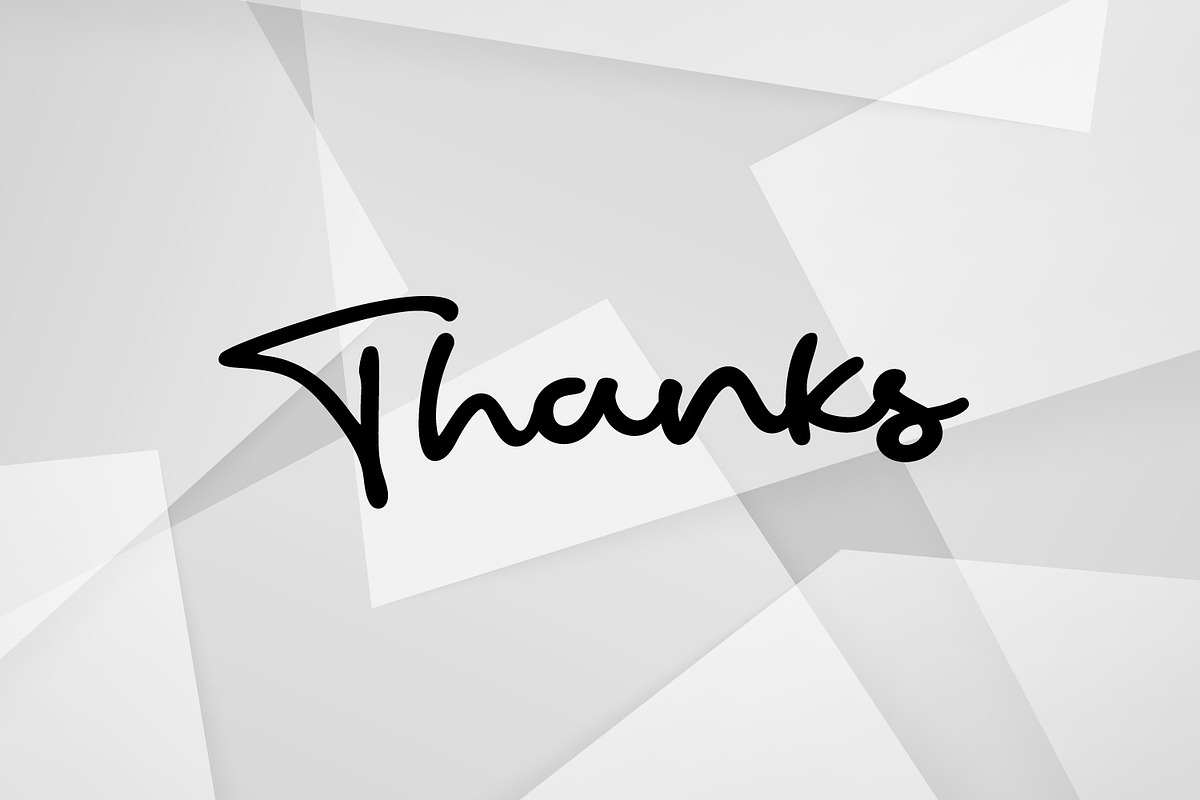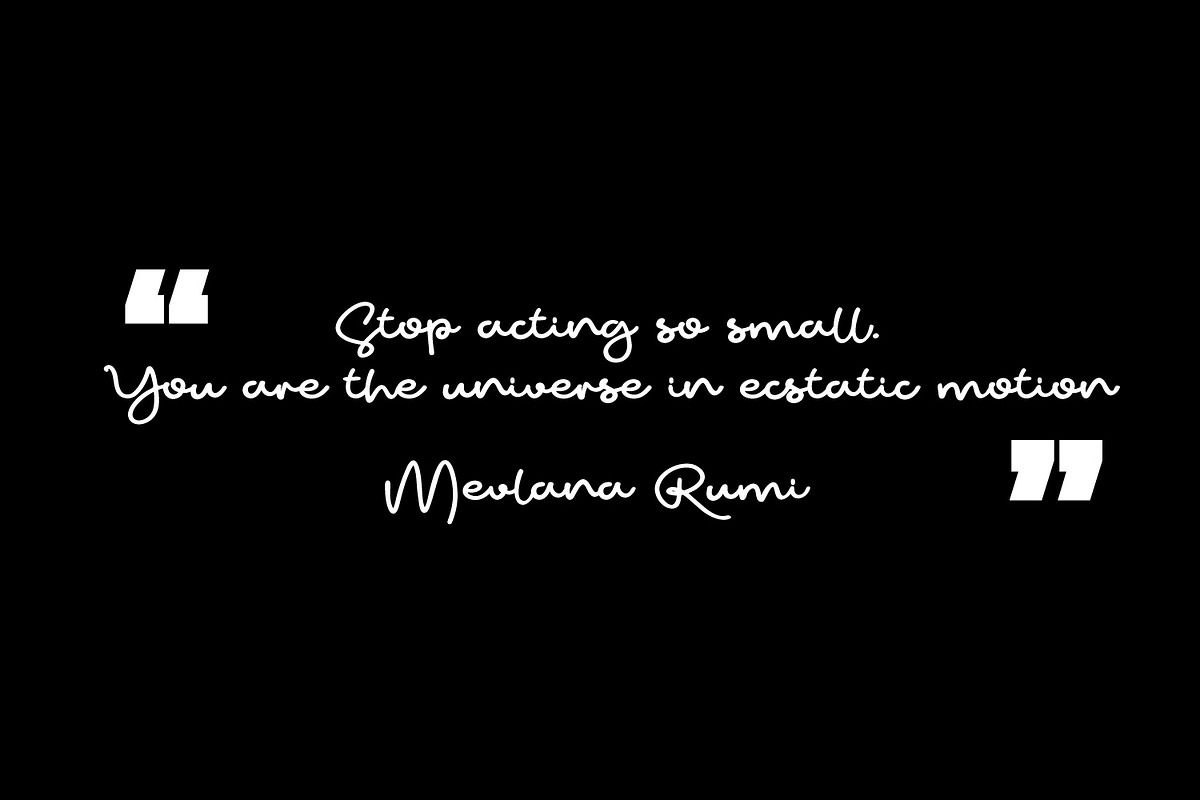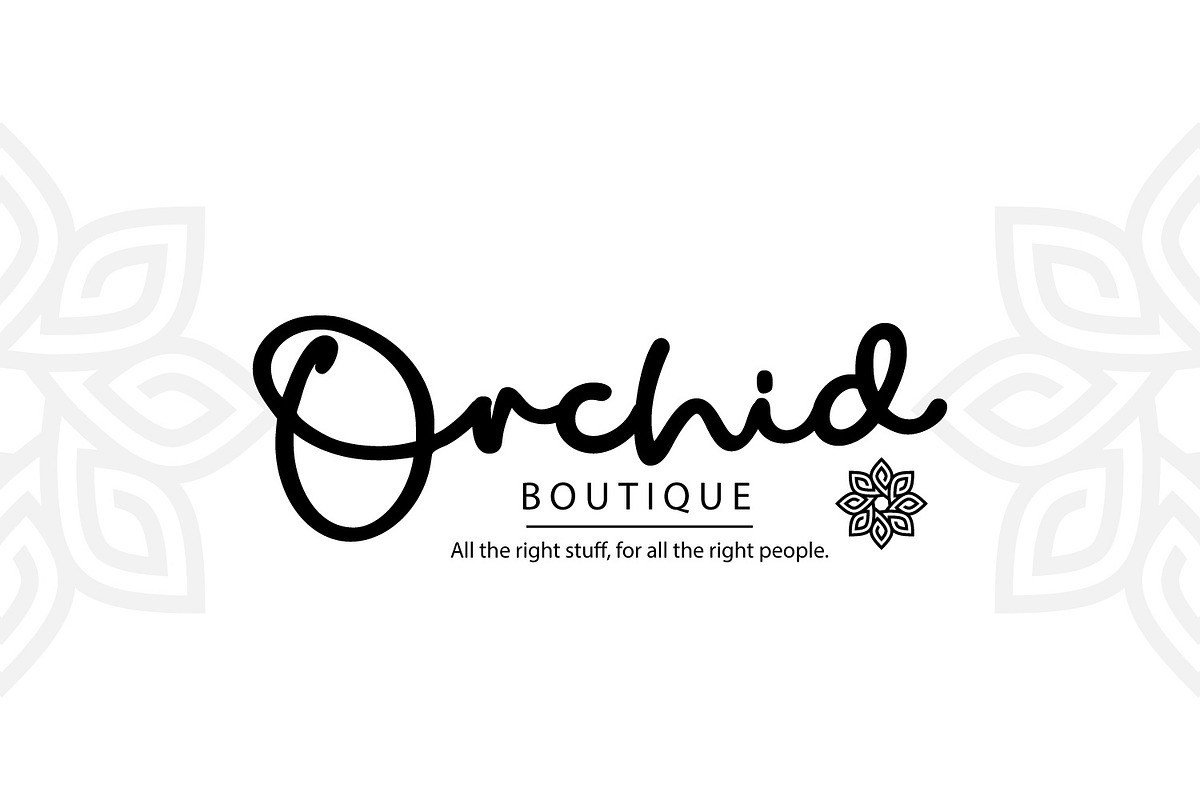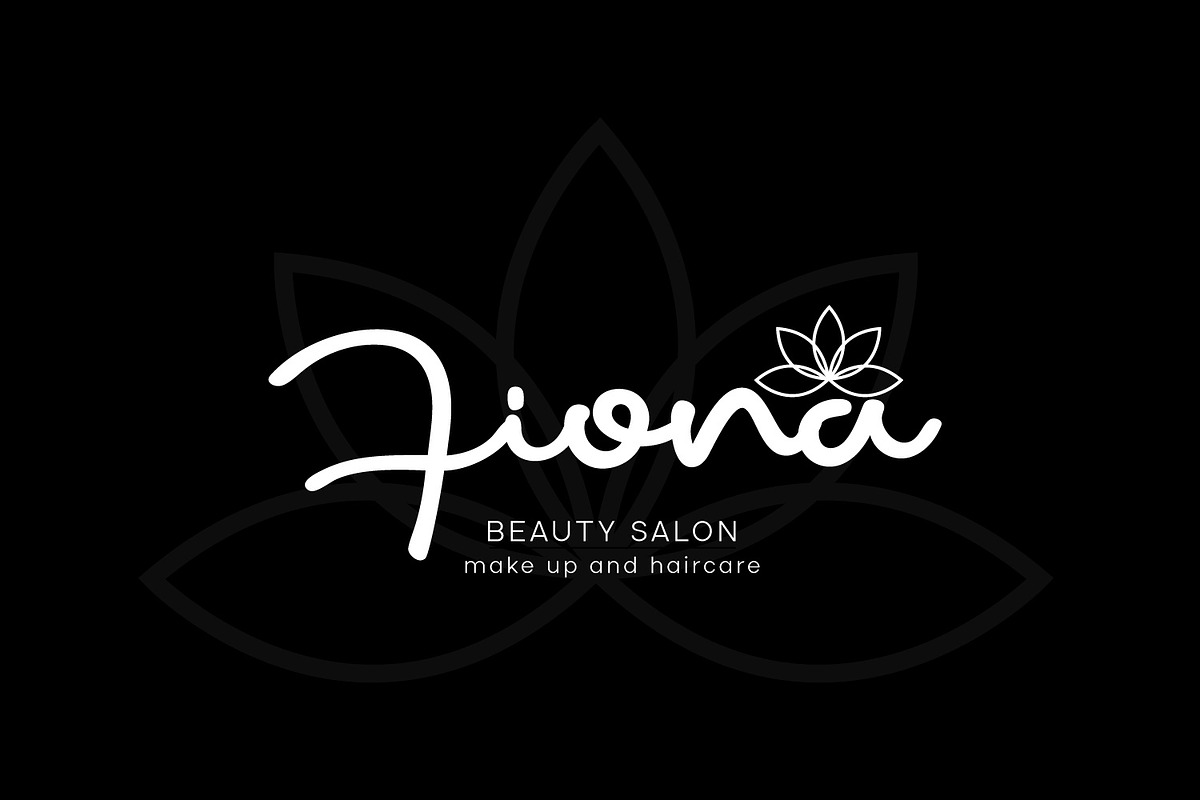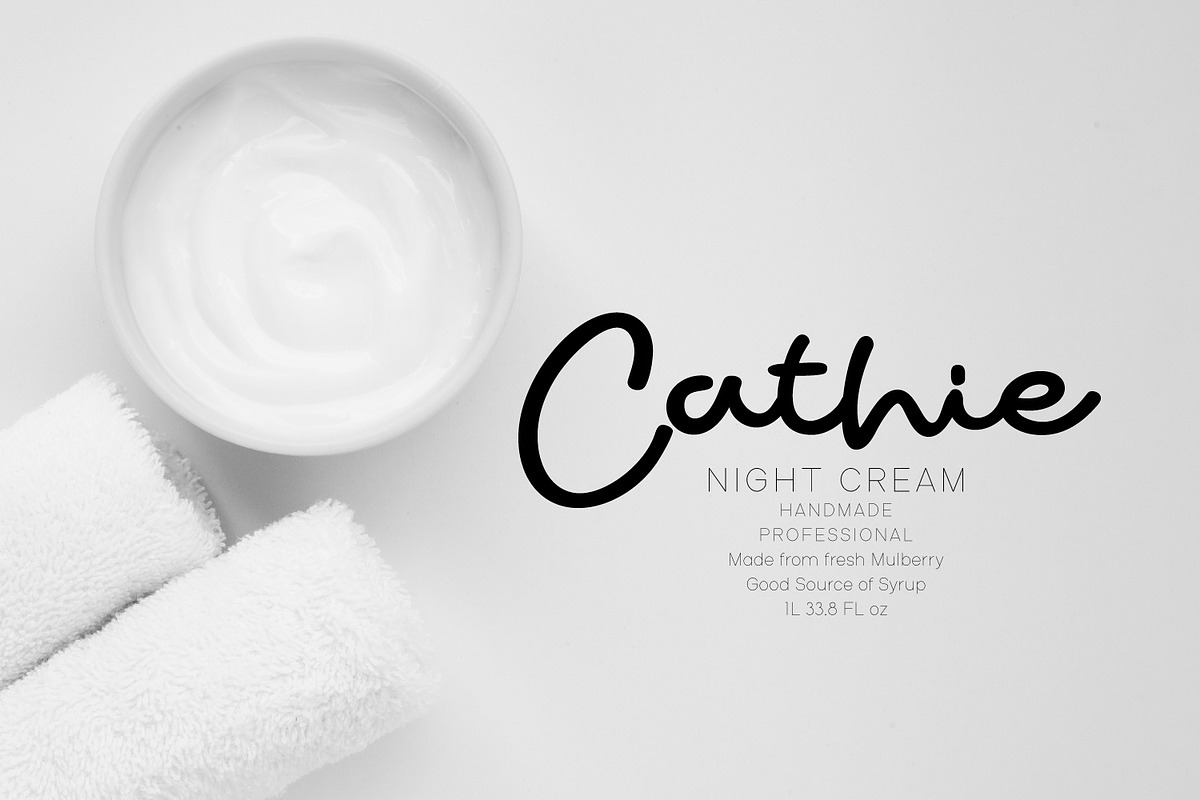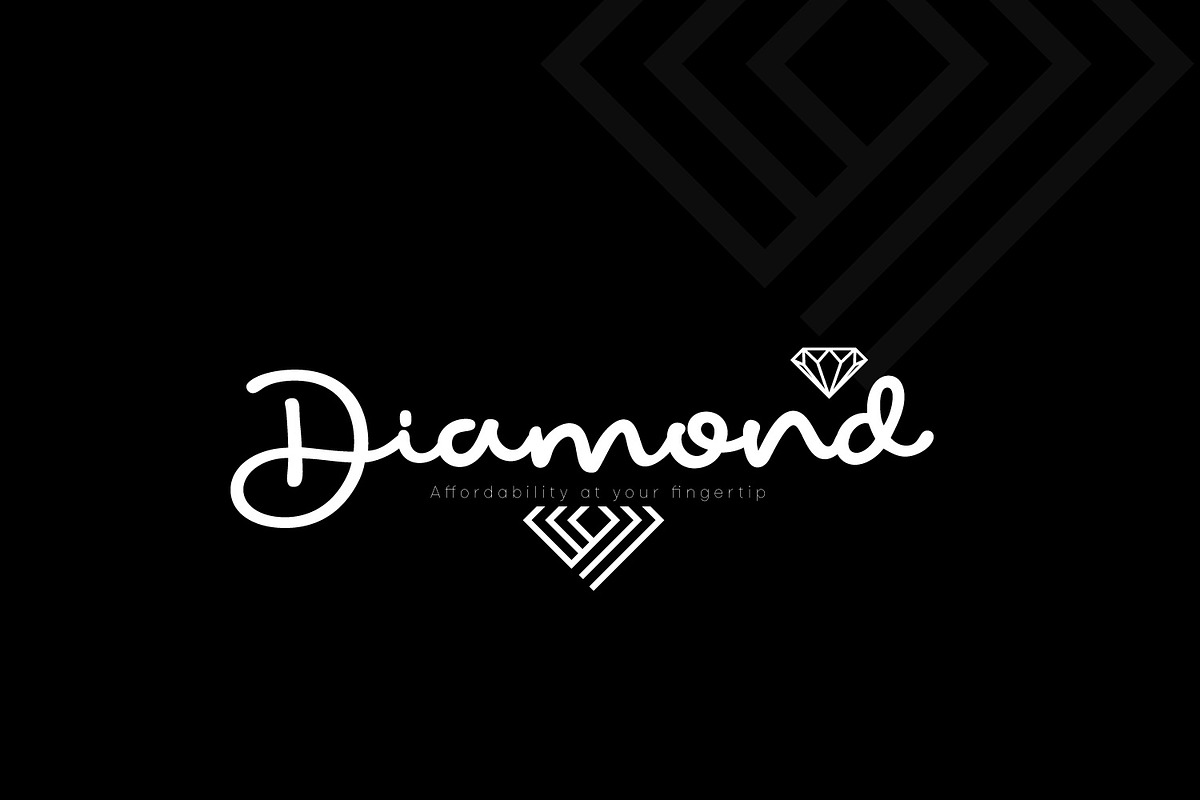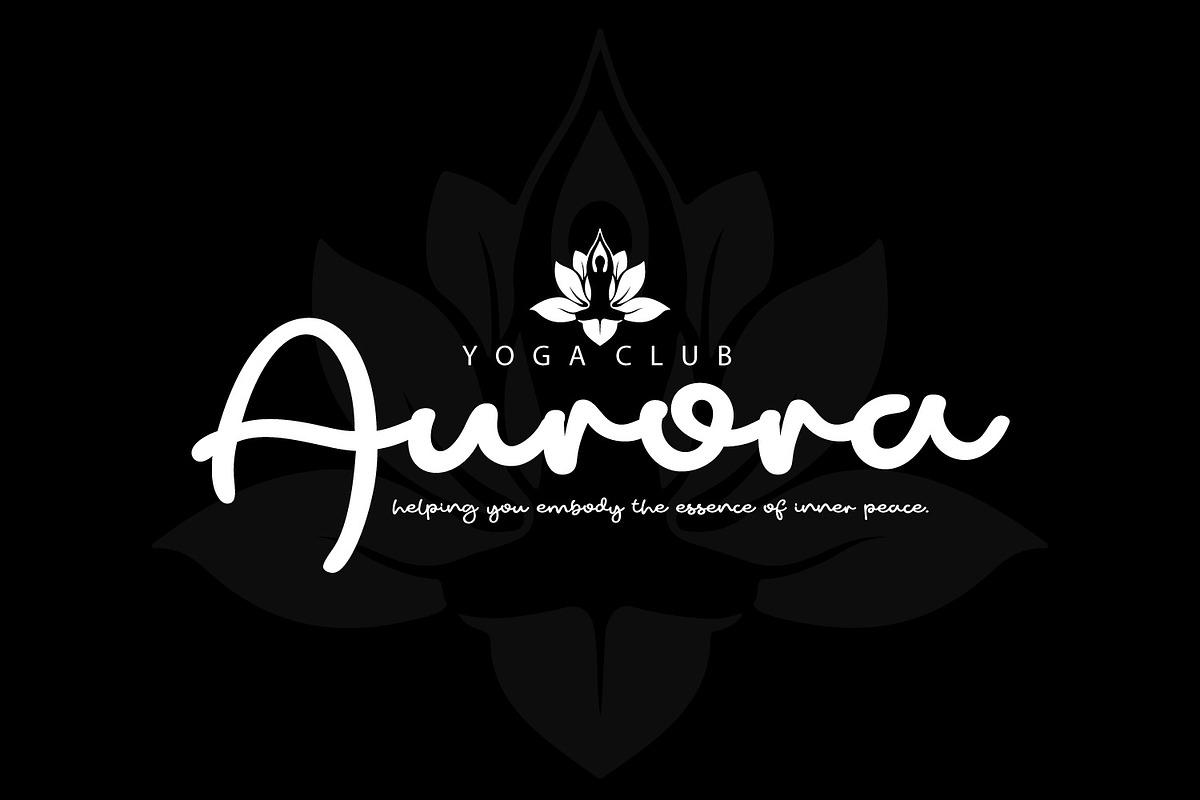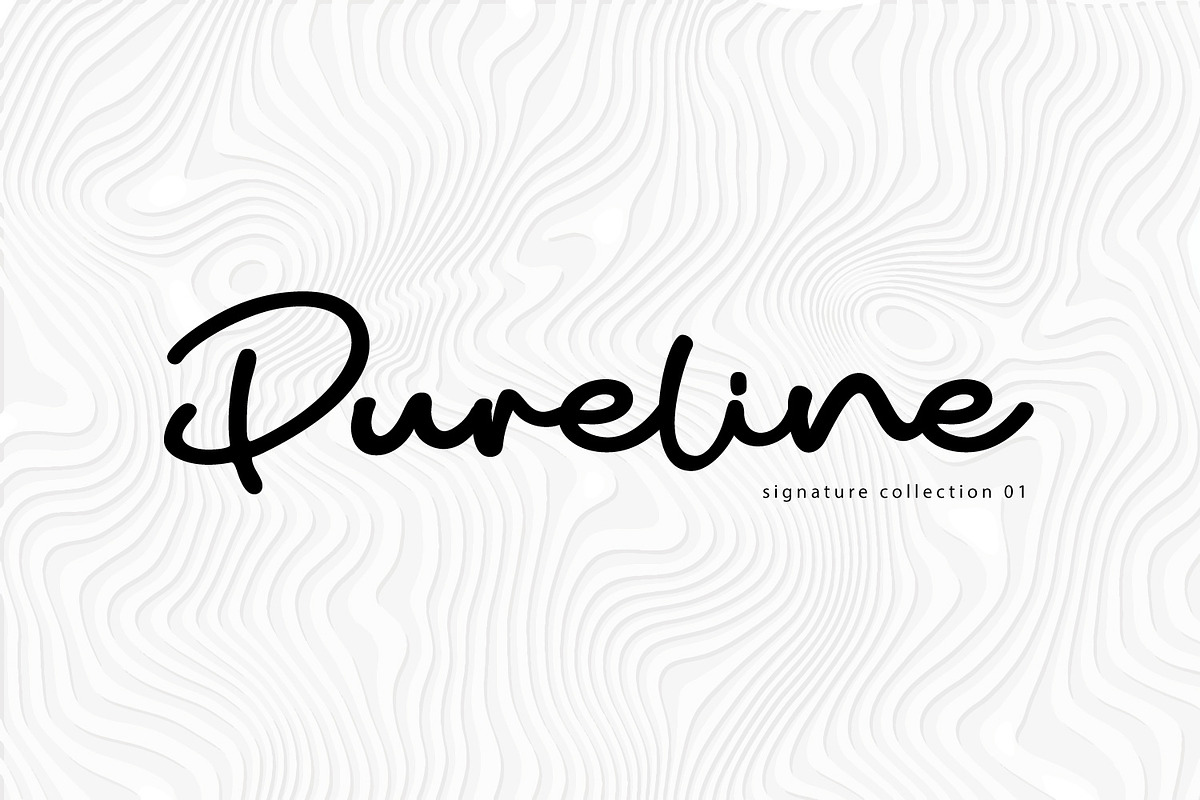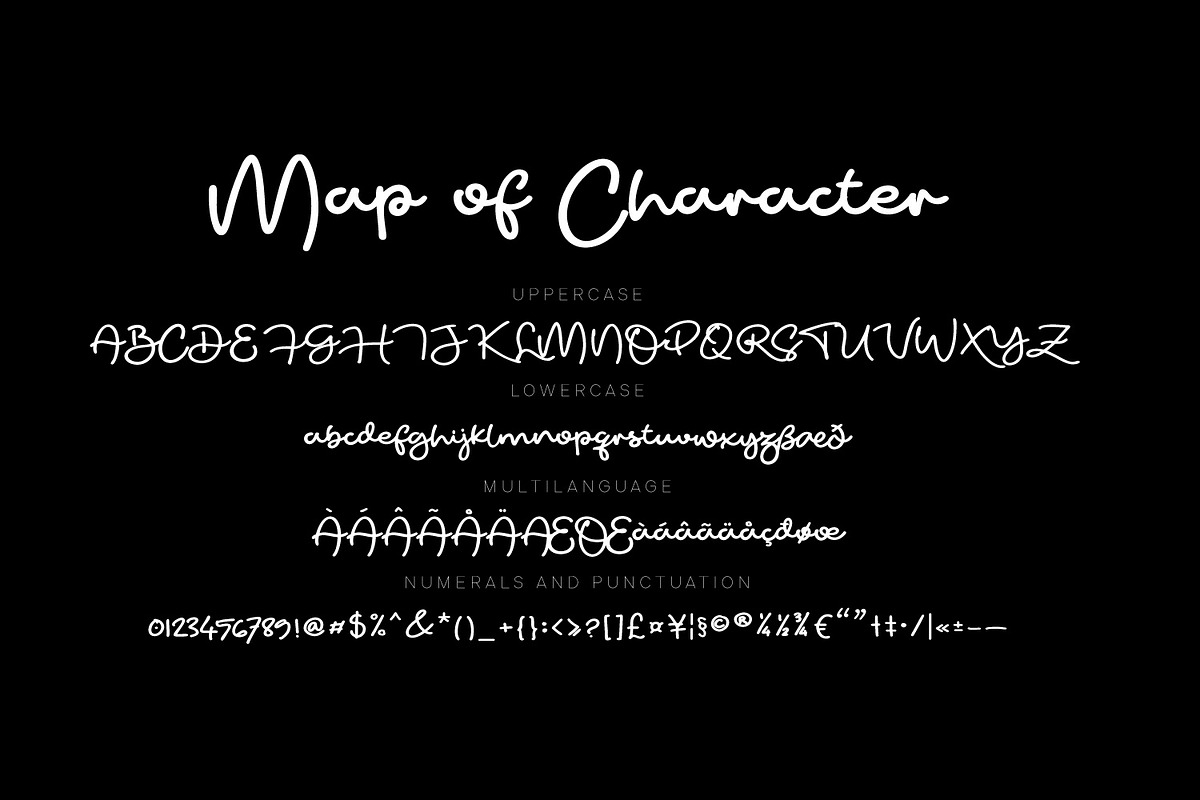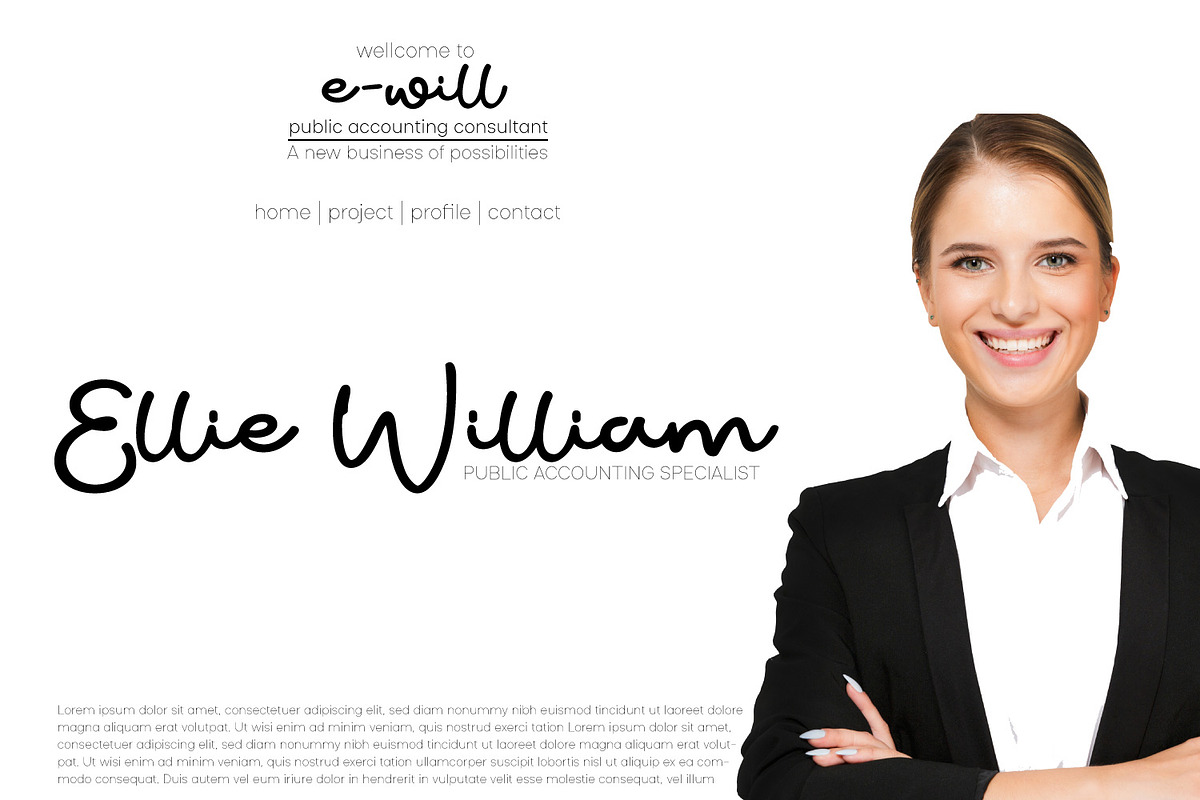
Pureline - Moniine Script
Pureline is a modern signature font, full of life and charm. Get inspired by its unique style and create outstanding designs!